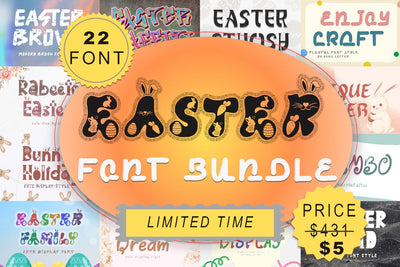
Easter Font Bundle
This set include 22+ font in Easter font !!!
- Easter Brown
- Easter Graffiti
- Easter Stylish
- Enjoy Craft
- Rabeeto Easter
- Easter Land
- Easter Family
- Unique Easter
- Bunny Holiday
- Chubby Bear
- Rabbit Dream
- Gabilo Display
- Darison
- With Bomby
- Jelly Choco
- Remuk
- Kolaka
- Brembo
- The Valensia
- Kinanshi
- Melasthi
- Bolpen
This bundle is perfect for a variety of projects such as christmas, weddings, designs, branding, logos, invitations, stationery, social media posts, advertisements, product packaging, product designs, labels, photography, valentine, easter, mother day, father day, watermarks, special events or whatever.